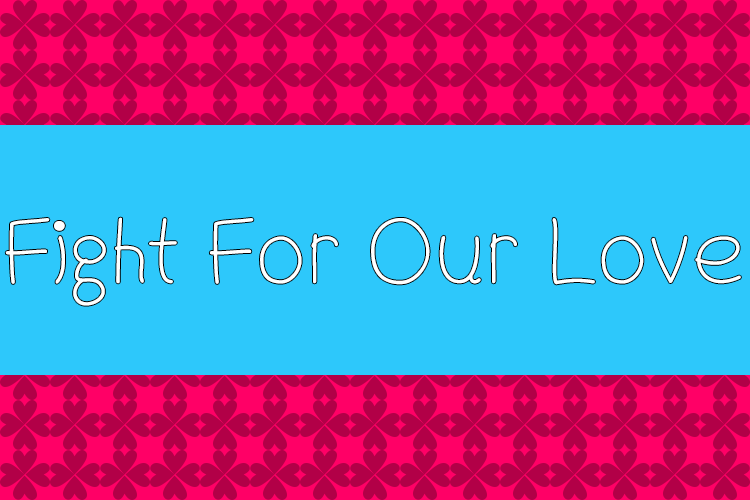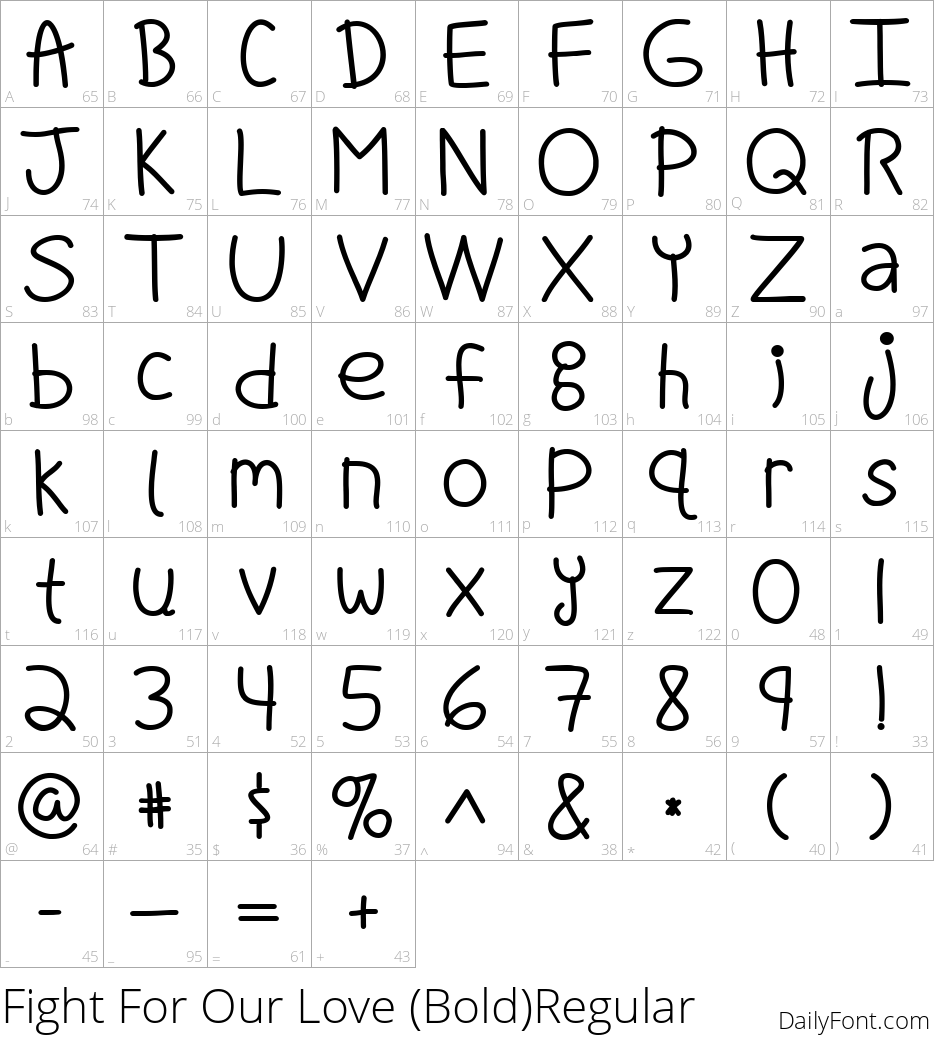
Fight For Our Love
Fight For Our Love is a charming feminine handwritten font that brings a personal touch to your craft and design projects. Ideal for wedding invitations, greeting cards, and other romantic themes, this font captures the essence of affection and warmth, making your designs resonate with love.
With its elegant curves and unique style, Fight For Our Love stands out in any design context. Whether you're creating personalized gifts or branding materials, this versatile font adds a delightful flair that is sure to engage your audience. It's not just a font; it's a storytelling element that enhances the emotional connection of your projects. Perfect for both digital and print applications, Fight For Our Love will elevate your designs and attract attention through its enchanting aesthetic.